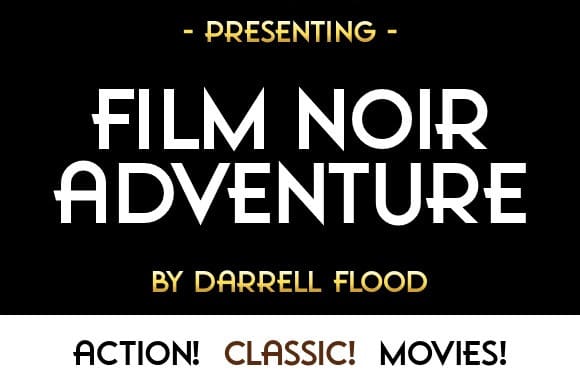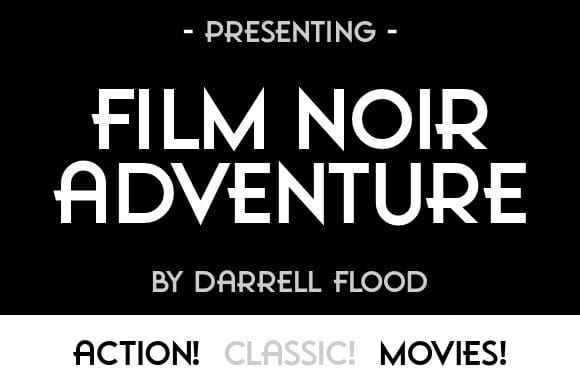
Film Noir Adventure Font
Film Noir Adventure Font, A crisp, stylish vintage font in an old detective movie style. Perfect for period settings, black and white film projects and general all purpose use!